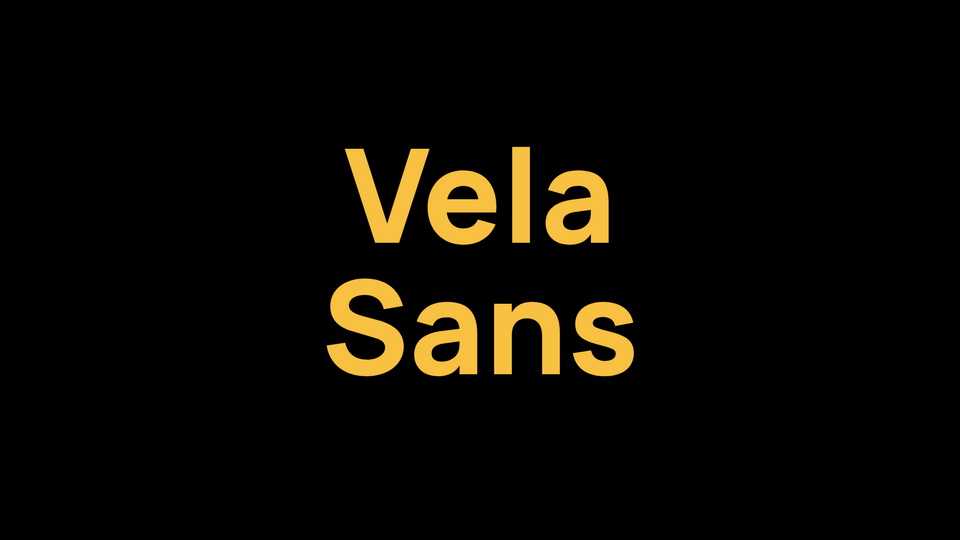
Download Vela Sans typeface, a modern grotesque font family, a modification of Manrope project. Vela Sans is a semi-condensed, clean, minimal sans serif font perfect for any design project.
Designer: Ravid Balaliev